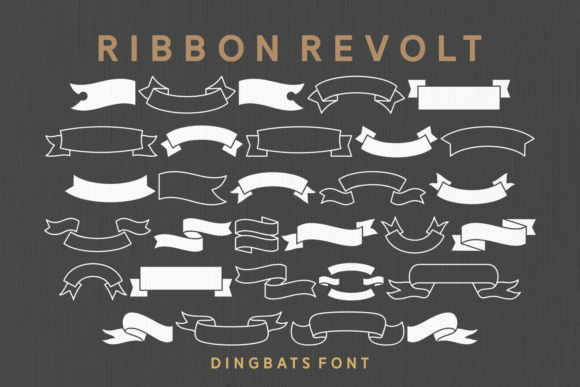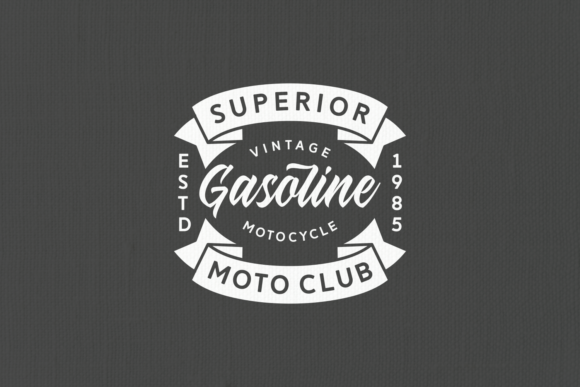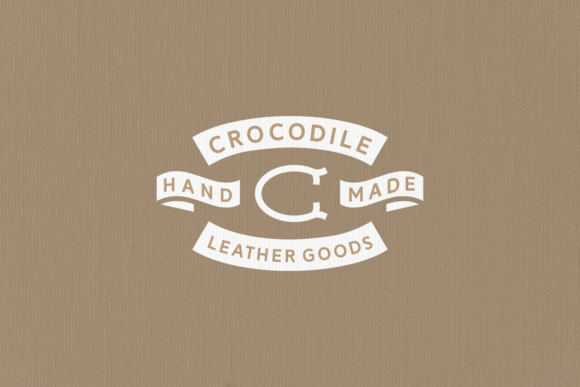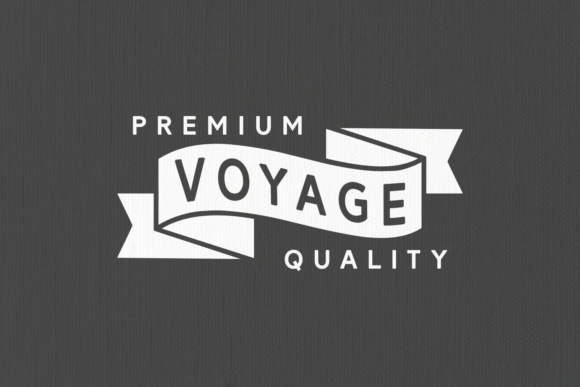
Ribbon Revolt Font: Vintage Banner Dingbats for Logo Design
About the Ribbon Revolt Font
Elevate your designs with Ribbon Revolt Font, a font that combines sophistication with readability. Ribbon Revolt is an incredible dingbats font with unique banners. Get inspired by its vintage feel!
Ribbon Revolt’s vintage-inspired banners are ideal for headlines, short text blocks on posters, and branding elements needing a touch of retro flair. It works exceptionally well in packaging design for products emphasizing nostalgia or a handcrafted feel. However, its decorative nature makes it unsuitable for body text or UI elements where readability is paramount. Avoid using it in long paragraphs or for anything requiring small point sizes.
Its playful yet bold personality pairs well with clean sans-serifs like Open Sans for balance, or a more geometric sans-serif like Futura for a modern contrast. For a softer feel, consider pairing it with a delicate script font, but keep the script usage minimal to avoid visual overload.
The overall effect is best described as celebratory and slightly rebellious; perfect for brands targeting younger audiences or projects with a vintage aesthetic but modern twist.
Ribbon Revolt Font Example